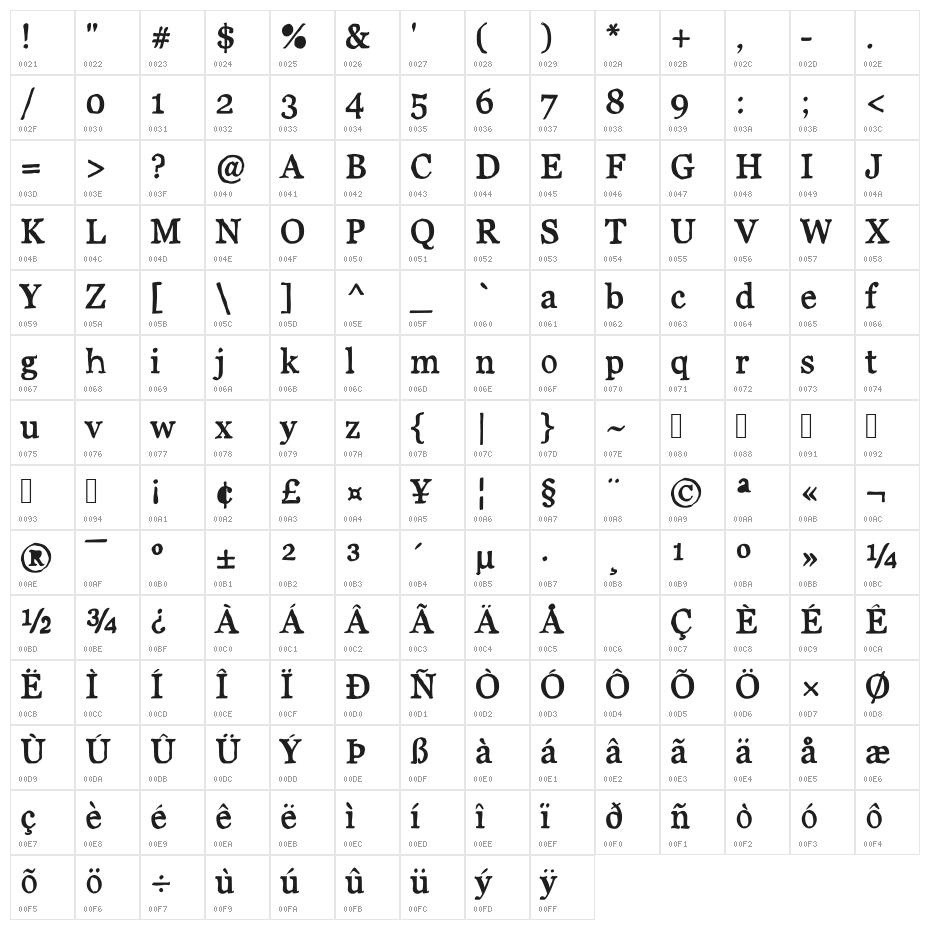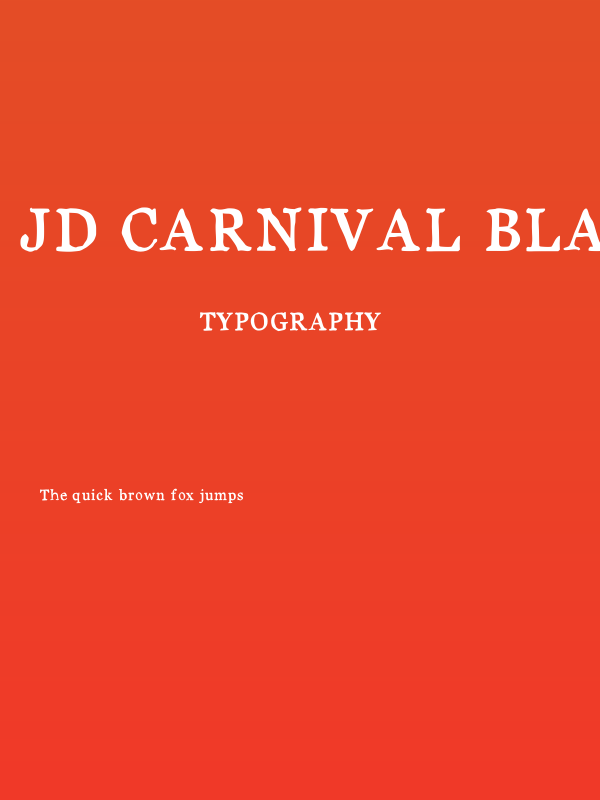
JD Carnival Black Font
JD Carnival Black Description
This font features a bold and playful design, reminiscent of vintage carnival posters. The characters are robust with a slightly irregular stroke, giving them a hand-crafted feel. The uppercase letters are tall and commanding, while the lowercase letters maintain a consistent style with a touch of whimsy. Numbers and special characters follow the same bold and decorative style, making them stand out. The font's unique character is enhanced by its high contrast between thick and thin strokes, adding to its visual appeal.
| Proposed Projects | Ideal for posters, signage, event invitations, and branding projects that require a fun and eye-catching typeface. |